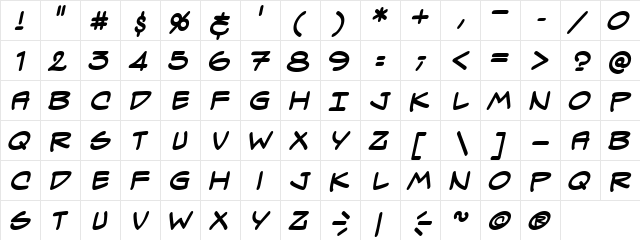
Spectre Verde BB Bold
Design Context for Spectre Verde BB Typeface
Spectre Verde BB is a composed and adaptable typeface that performs quietly and consistently across a wide range of design contexts. The heavy weight commands attention and anchors typographic hierarchies.